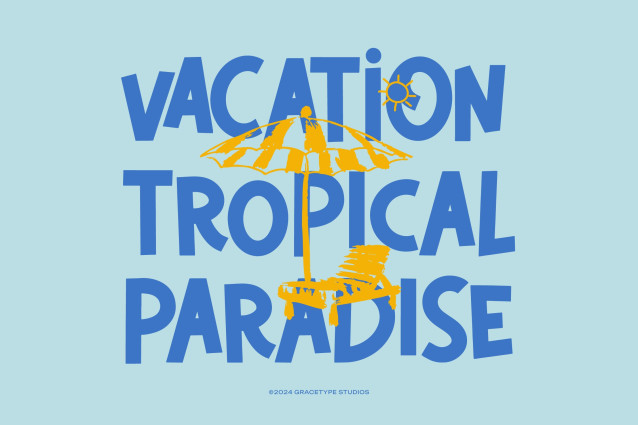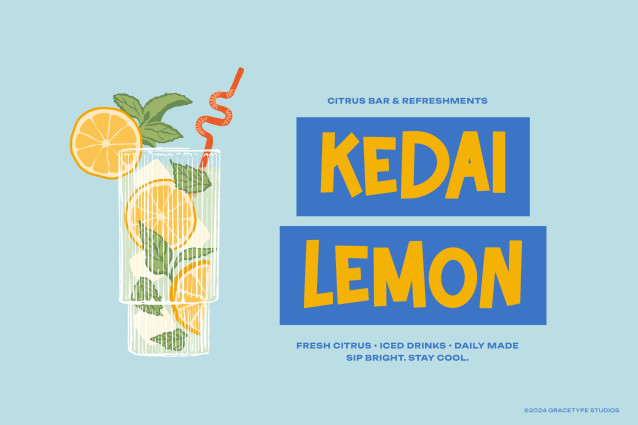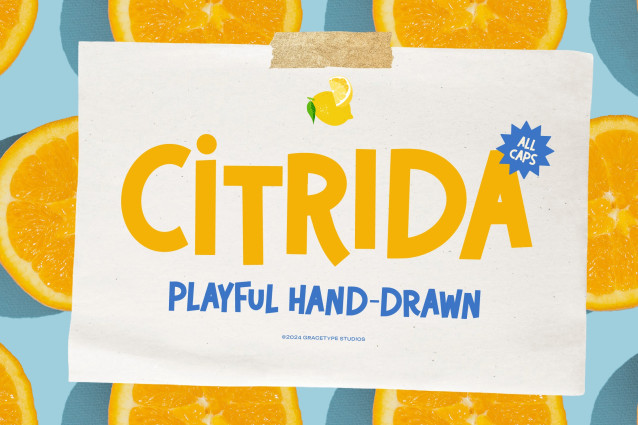
Citrida Font
Citrida Font | Playful Hand Drawn, from Gracetypestudio, suitable for any projects such as: logos, branding projects, homeware designs, product packaging, mugs, quotes, posters, shopping bags, t-shirts, book covers, name card, invitation cards, greeting cards, label, photography, watermark, special events, and all your other lovely projects that need a Hand Drawn taste.